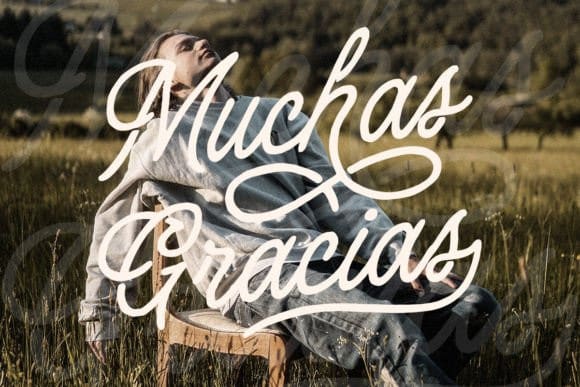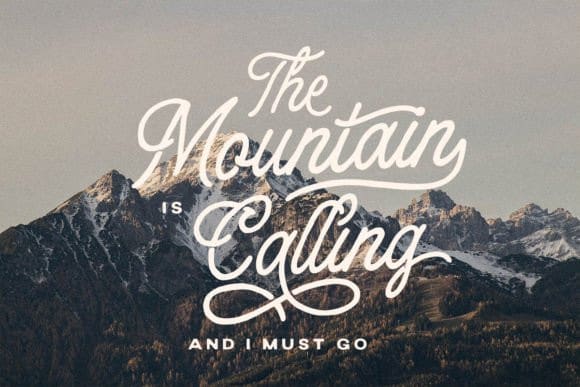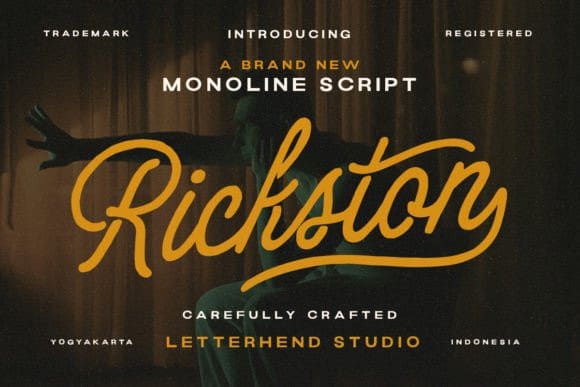
Rickston Script Font
Rickston Script Font is a monoline script carefully crafted. Its clean and casual, making it an ideal choice for designs that demand a cool, especially in logo, headline, signage, and the other various formal forms such as invitations, labels, logos, magazines, books, greeting/wedding cards, packaging, fashion, makeup, stationery, novels, labels or any type of advertising purpose. This font is PUA encoded which means you can access all of the amazing glyphs and ligatures with ease!